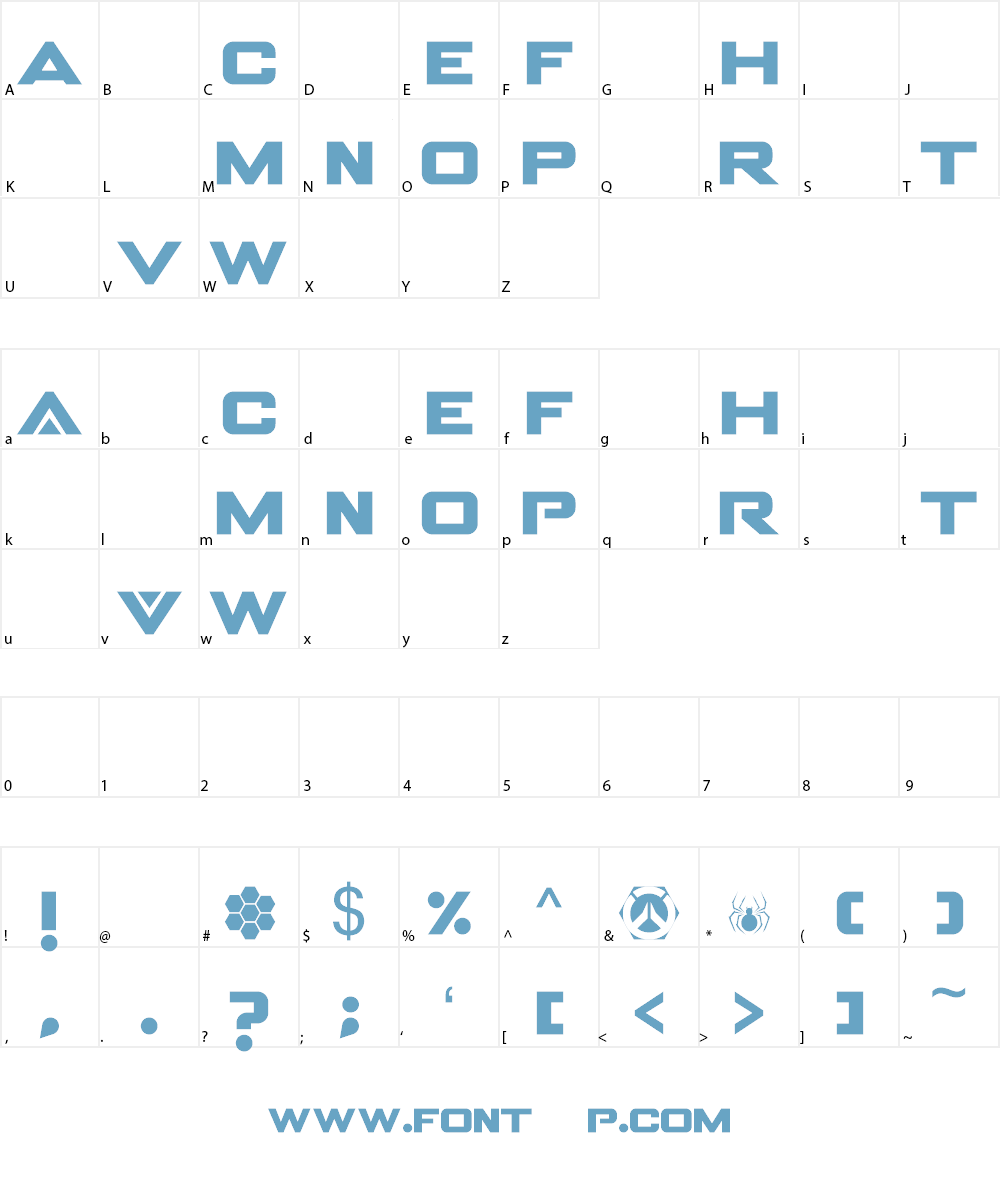
I created this typeface based on the FPS team-based shooter video game of a similar name that my son is totally addicted to, I guess he's a true fan he works together to secure and defend control points . This typeface It has similar narrow rounded arms with angled stems, crossbars and collars.